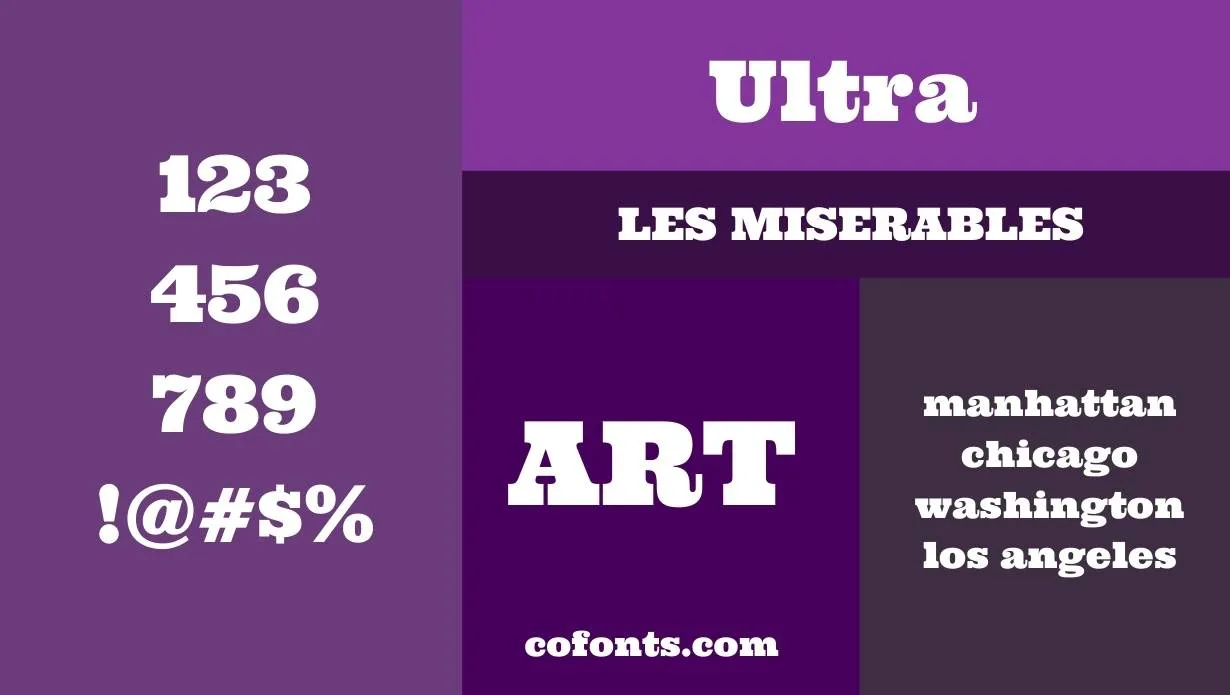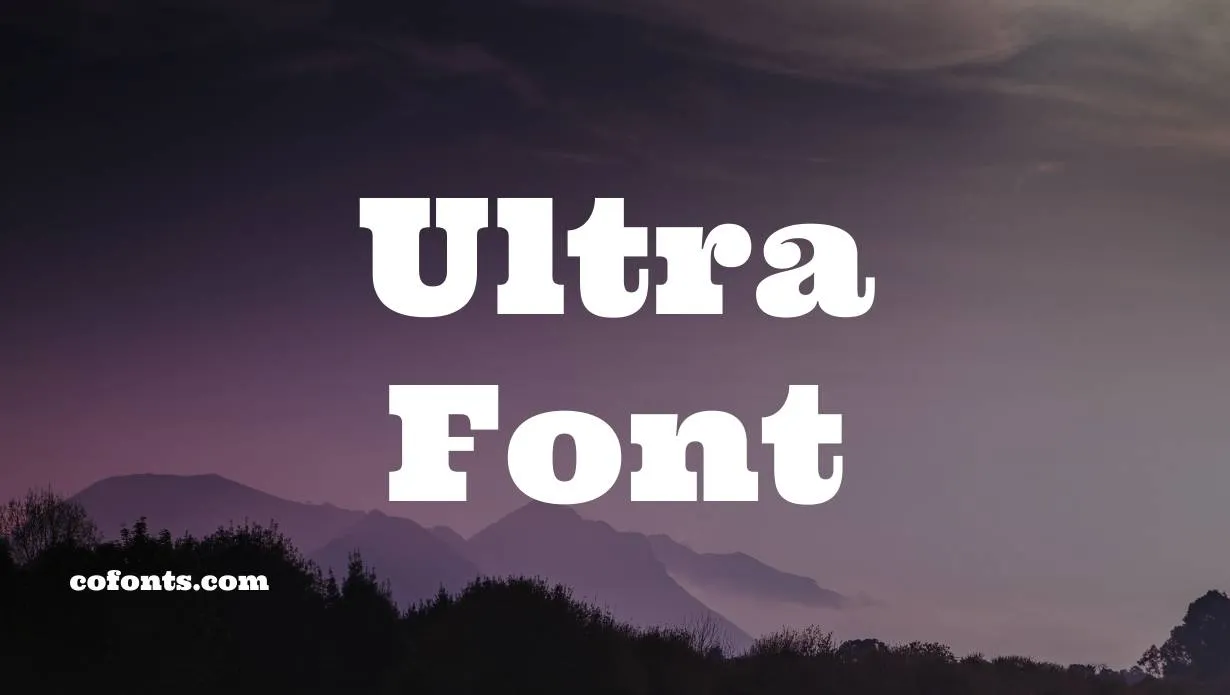
In this post, we are trying to introduce you to an extra bold style of unique and amazing texture, that is called Ultra Font. This typeface is a member group of the slab serif family. Which is a string style of the knob with a wood style like Egyptian. This typeface is designed by one of the well-known fonts and graphic designers, who is known as Astigmatic. He is a principal designer as well.
This texture is released with a single and regular style of texture, that has up to one hundred and ninety-nine glyphs, with punctuations of other characters, and more language supports, including Cyrillic and Greek. That fulfills a need of a designer.
Usage of Ultra Font
This is one of the extra bold and strong styles of texture, that has a very good with a large display for readers and viewers. You can use this typeface for any type of digital media or print media project. You can use this texture for any style of design, like posters, banners, and many more.
This is unique with a more attractive and eye-catching style of a typeface. that is perfect for heading and titling, book covers, advertisements, and many more. You can use this font for amazing logos and graphic design.
Ultra Font Family View
Ultra Font
StyleSlab Serif
DesignerAstigmatic
What texture goes with Ultra?
There are a lot of fonts that get a match this typeface, but the similar and pairing texture to this typeface is the Nexa Slab Font.
What is an Ultra typeface?
Ultra Font is a member group of the slab serif family. Which is a string style of the knob with a wood style like Egyptian.
Is Ultra a serif typeface?
This typeface is not only a serif font but is a typeface that is a slab serif with an extra bold style of texture appearance typeface.